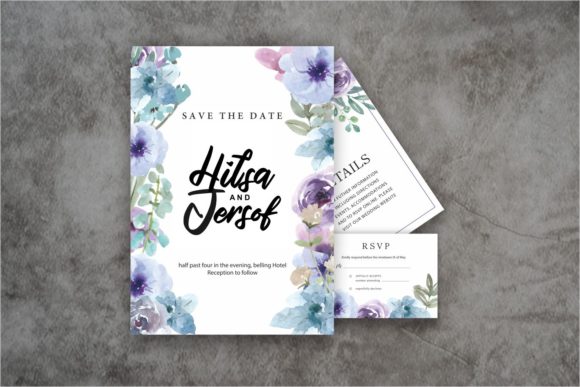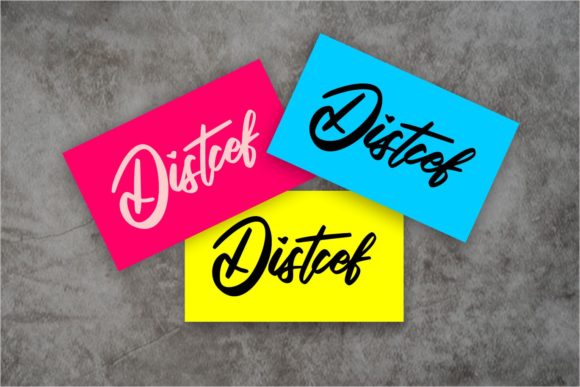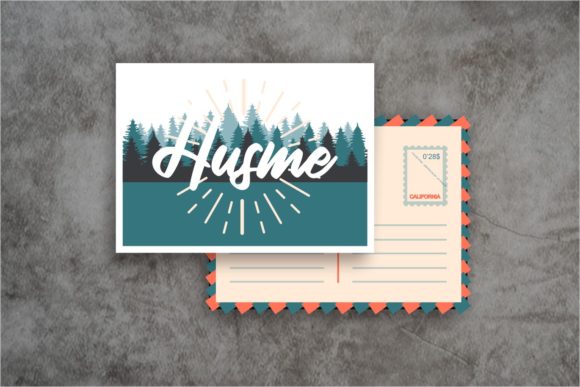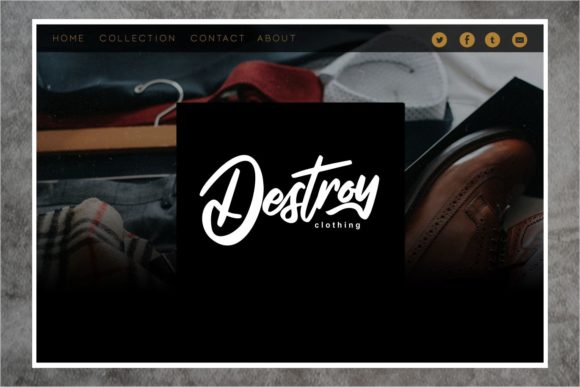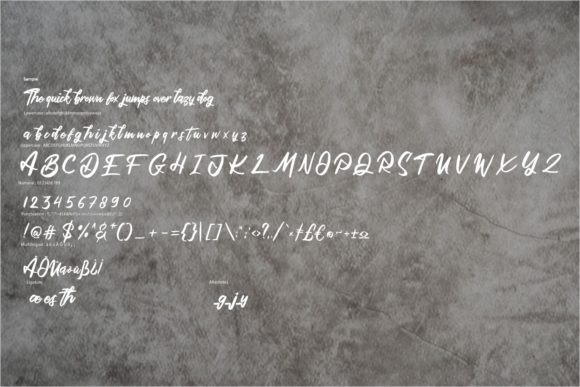
HomeScript FontsQutapy Font Script Fonts Qutapy Font FacebookXPinterestWhatsApp Qutapy Font Poster 2 Qutapy Font Poster 3 Qutapy Font Poster 4 Qutapy Font Poster 5 Qutapy Font Poster 6 About Qutapy Font Qutapy combines bold brush strokes and smooth curves into one truly original script. DOWNLOAD NOW People also explored Because of You Font Logotown Font Masculine Font Fatta Morgana Font Farmhouse Starmoon Font Abigaile Font Fathers Font AL Unicorn Mansion Font Zero Panzer Font 293 0 TagsQutapy Font Previous articleNorthon FontNext articleSamantha Font LEAVE A REPLY Cancel reply Comment: Please enter your comment! Name:* Please enter your name here Email:* You have entered an incorrect email address! Please enter your email address here Website: Save my name, email, and website in this browser for the next time I comment. Personal Use Free Planning Personal Use Free Read more about this font December Christmas Personal Use Free Read more about this font Cataclysmo Personal Use Free Read more about this font Evelyne Personal Use Free Read more about this font BLOG Elegant Wedding Invitation Fonts – Handwritten & Script Fonts Elegant Wedding Invitation Fonts Your wedding day is one of the most important moments of your life, and every detail matters—including your invitation design. Our... The 10 Best Handwriting Fonts to Add Personality to Your Designs Transform Your Website: Elevate Your Typography with 7 Best Web Font Generators How to Cut Any Font on Cricut: Convert a Font to SVG (Free)